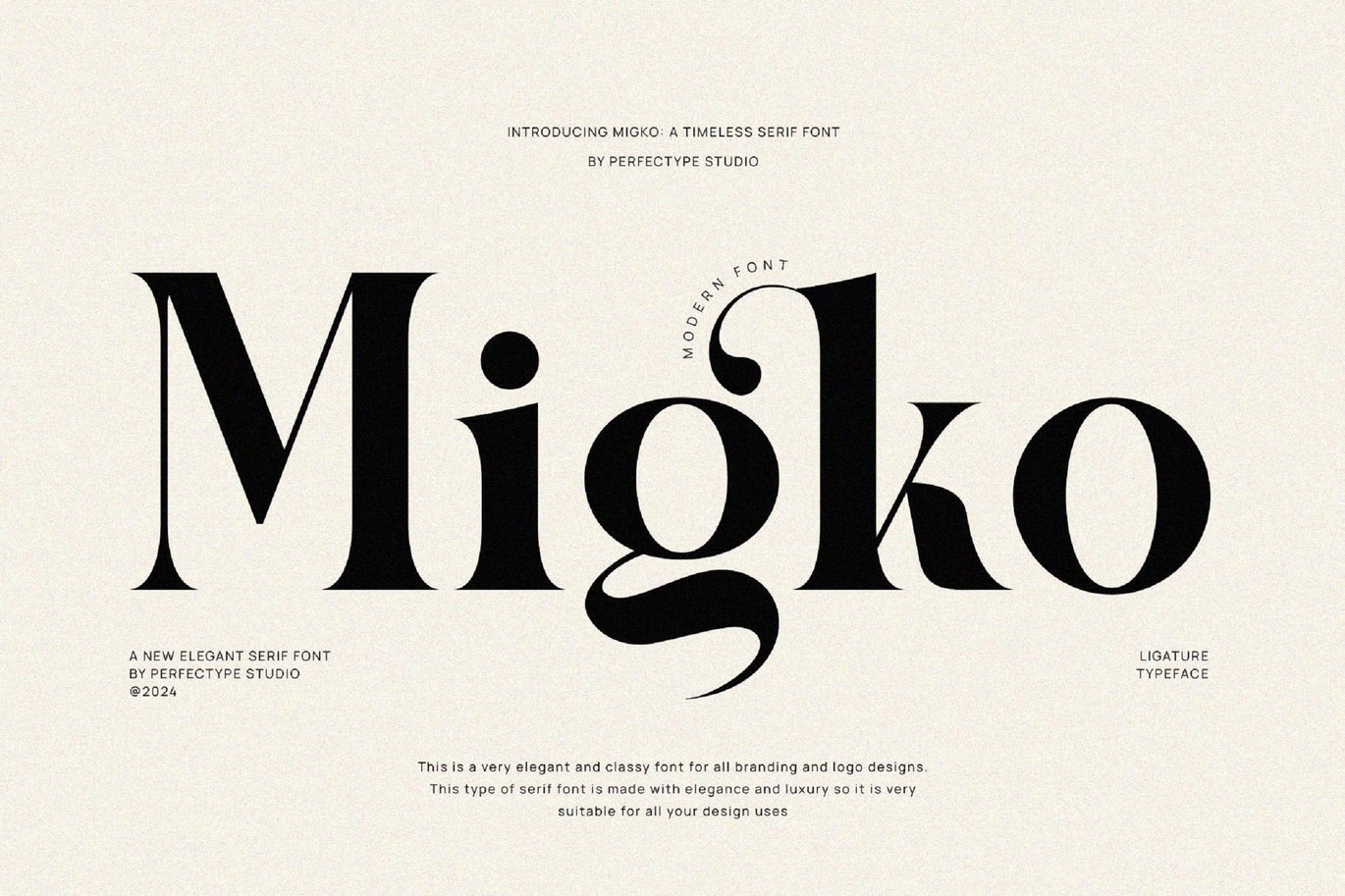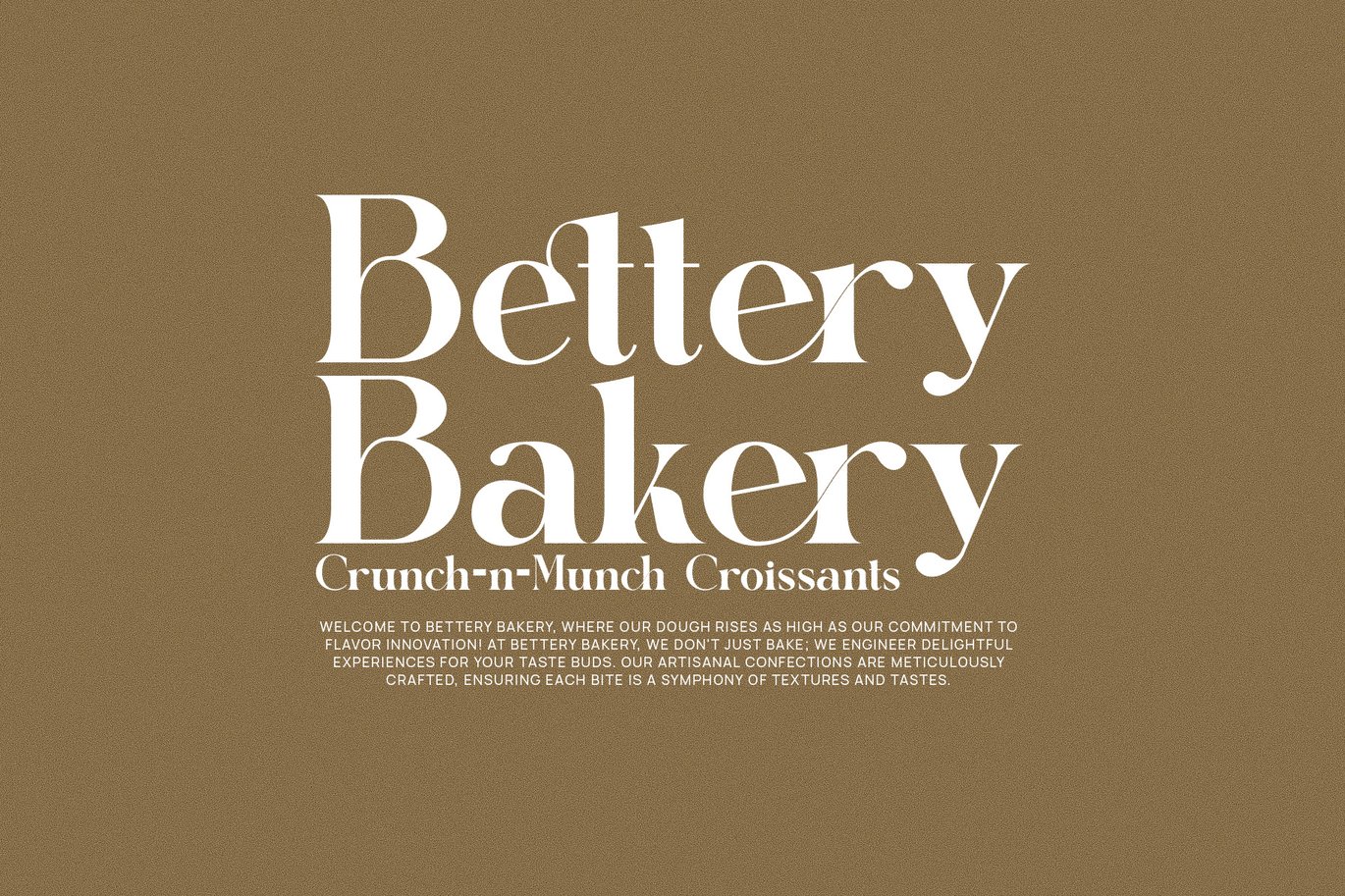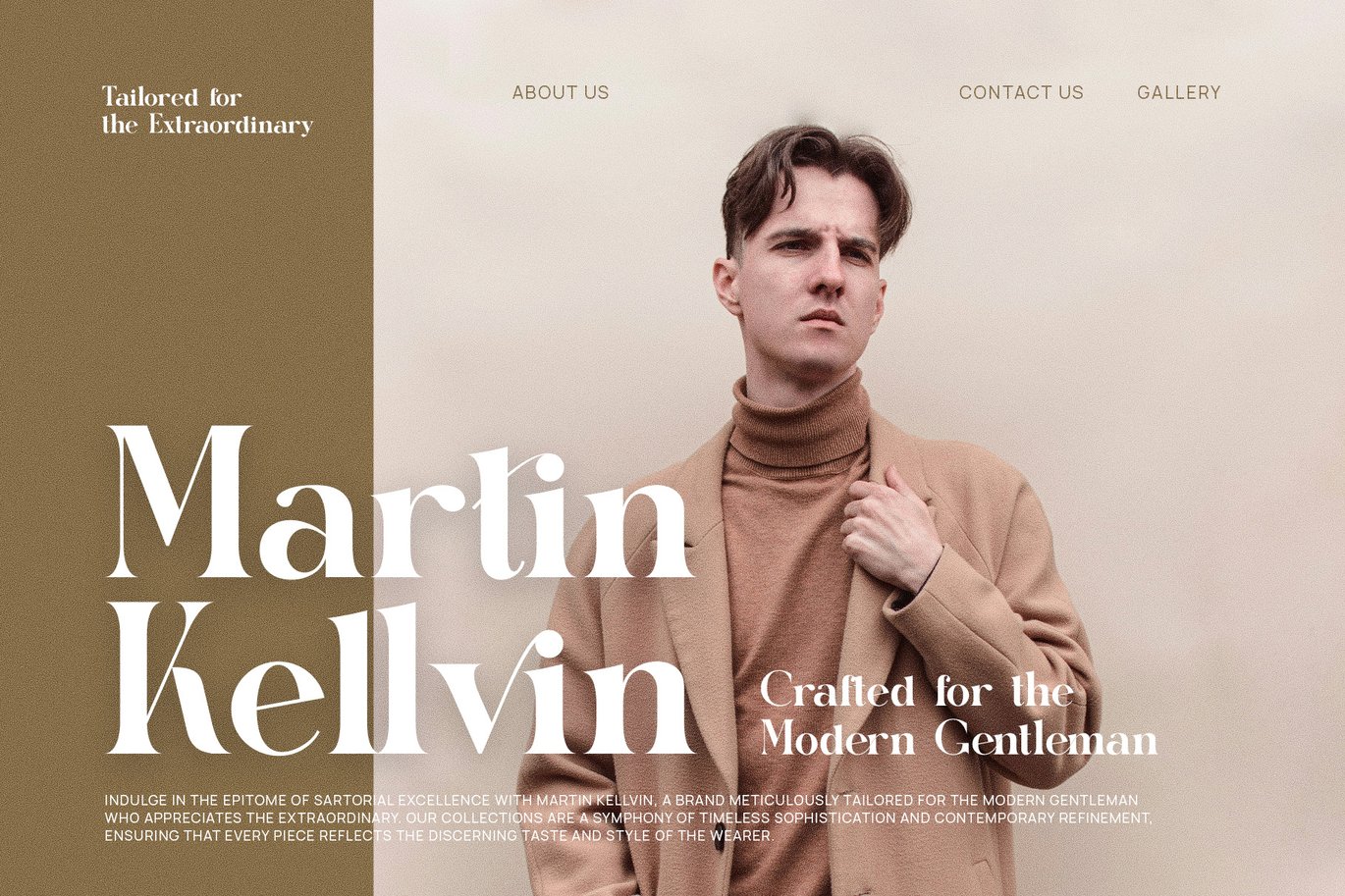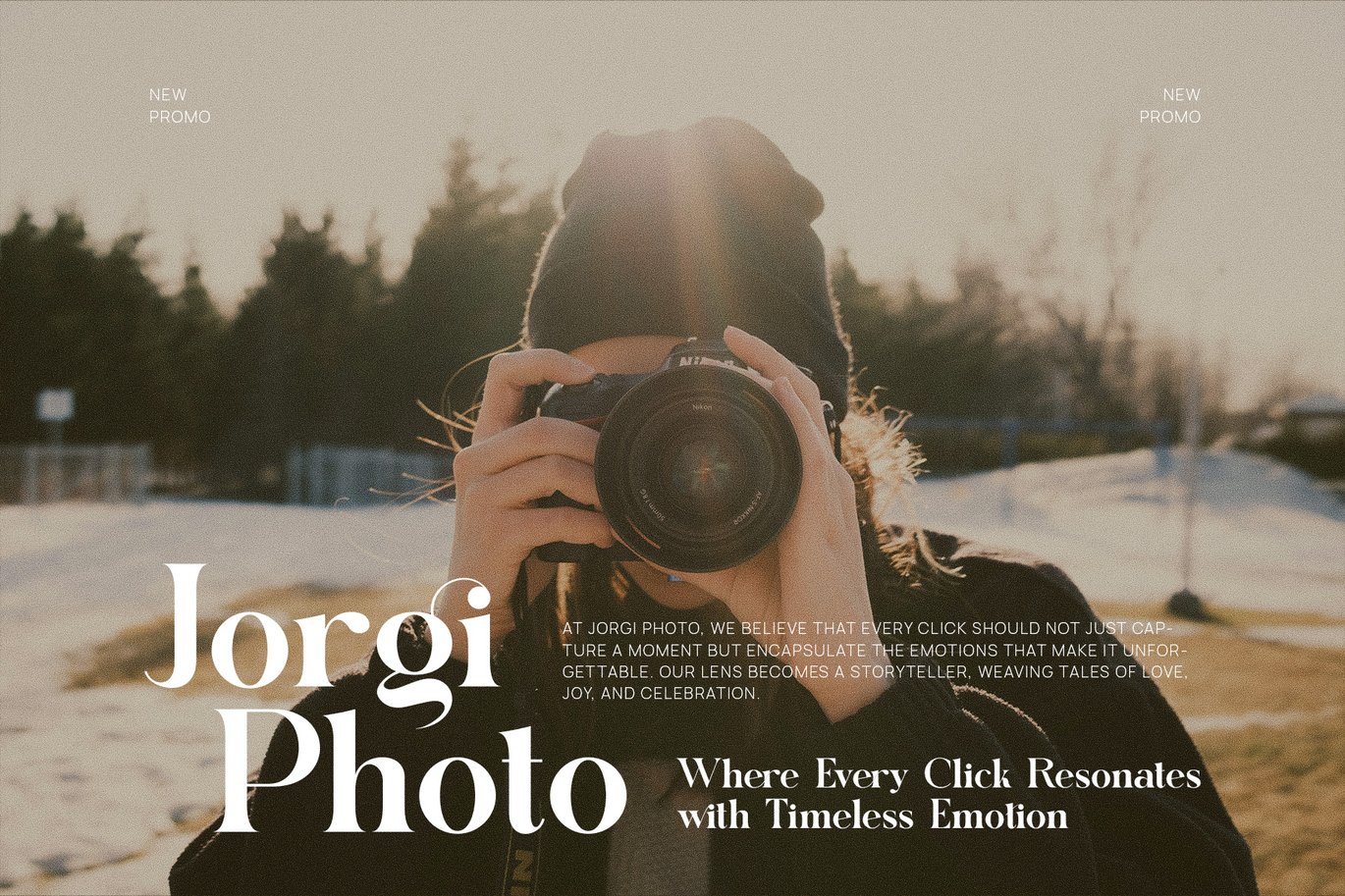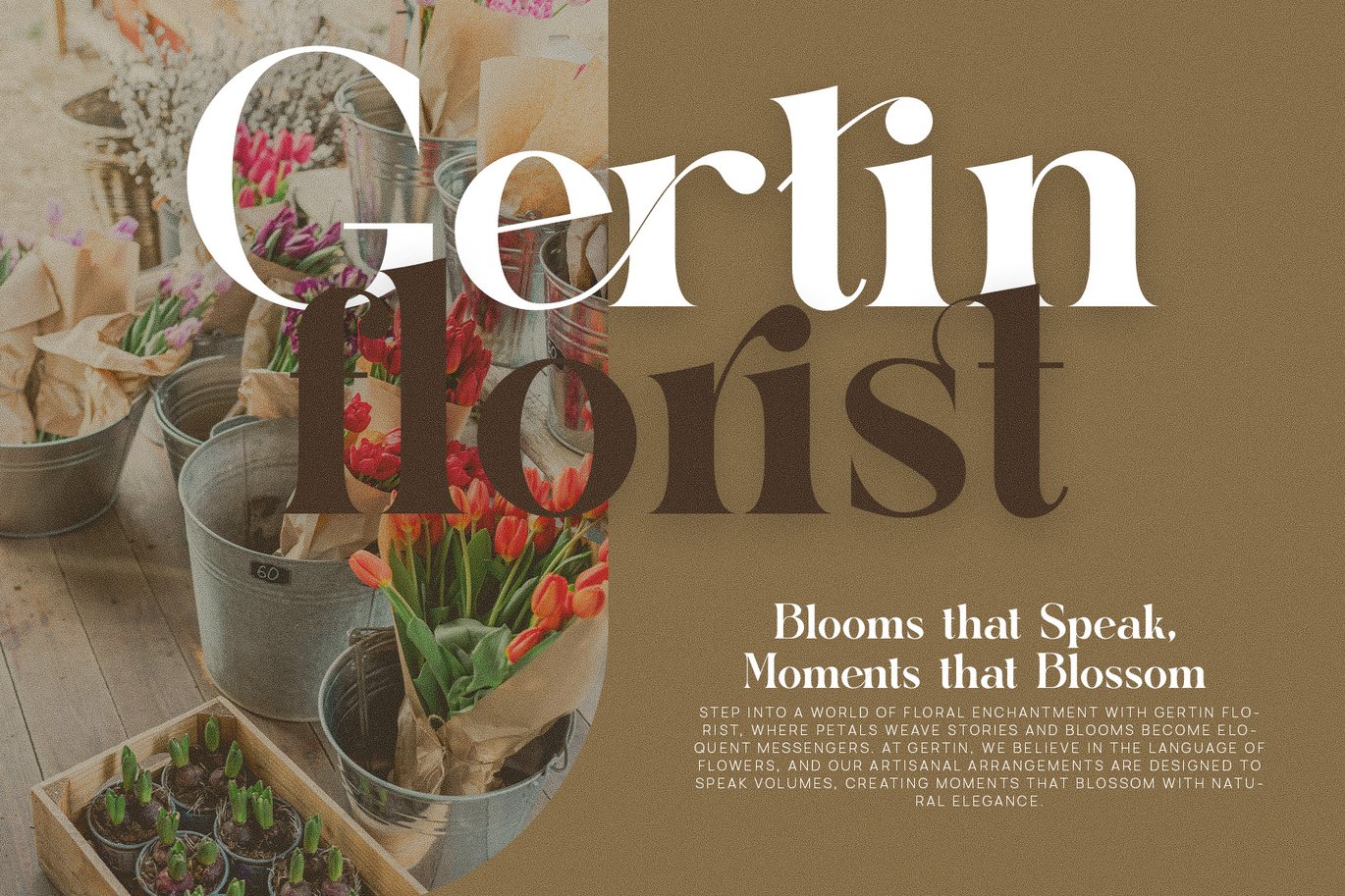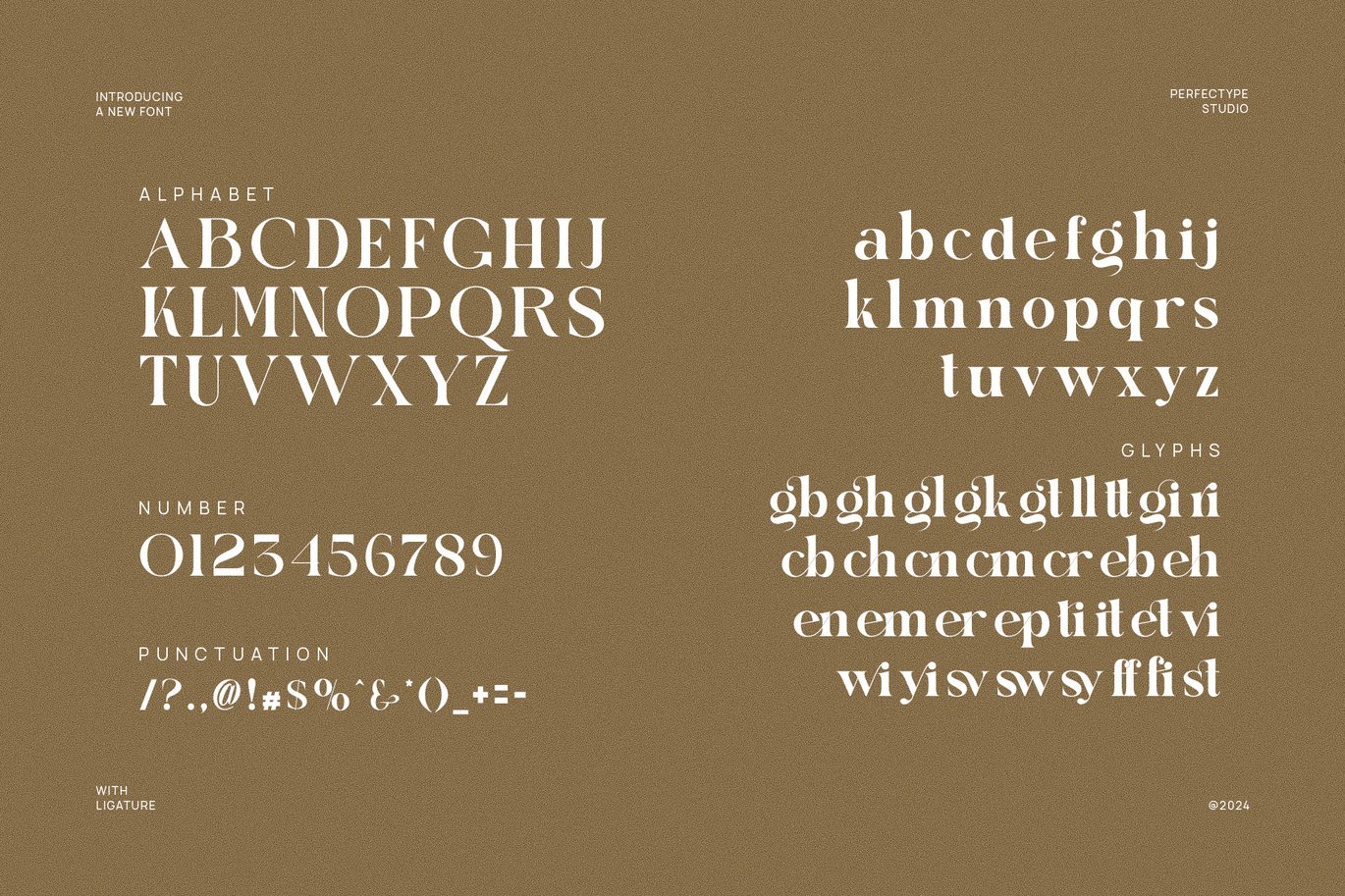
Migko Elegant Serif Font Typeface
Migko Elegant Serif is a sophisticated typeface that effortlessly blends contemporary minimalism with classic serif charm. Designed with precision and balance, this font features clean geometric shapes, refined letterforms, and subtle yet striking serifs. Whether used for corporate branding, editorial layouts, or stylish digital content, Migko brings a polished and professional aesthetic to every project.
Crafted for versatility, Migko is perfect for a wide range of design applications. Its structured yet graceful form ensures exceptional readability while maintaining a unique and distinguished presence. Ideal for logos, magazine headlines, product packaging, advertising, esports branding, and social media graphics, this font adapts seamlessly to both digital and print formats. Its elegant ligatures and harmonious proportions create a smooth, flowing text experience, enhancing any composition with sophistication.
Perfect for agencies, designers, and brands aiming to establish a strong yet refined visual identity, Migko adds a touch of class to every project. Whether creating sleek brochures, elegant invitations, modern templates, or impactful presentations, this typeface delivers an undeniable sense of confidence and style. Its timeless appeal ensures a lasting impression, making it an excellent choice for those seeking a blend of tradition and innovation.
For those who value both elegance and versatility, Migko Elegant Serif is the ultimate font choice. Elevate your typography with its refined details and contemporary structure, ensuring every word exudes clarity, sophistication, and lasting impact.